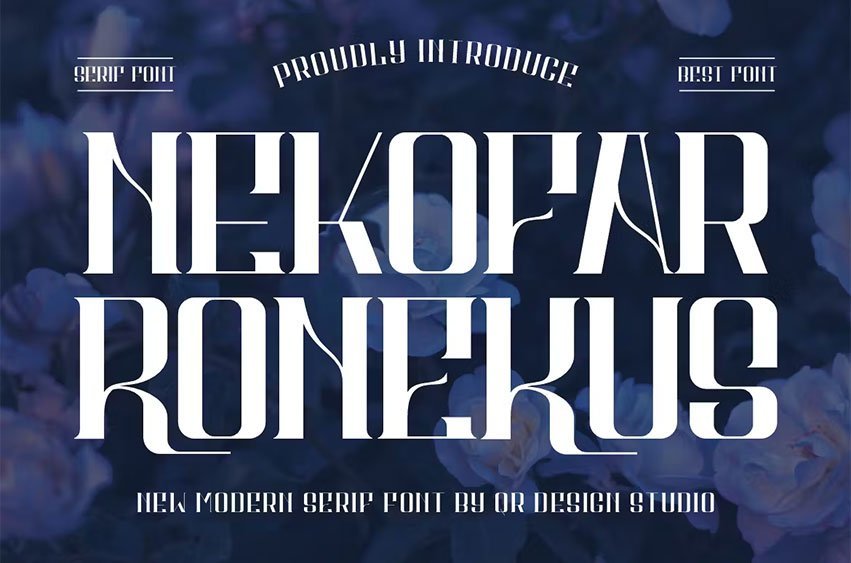
Nekofar Ronekus Font
Nekofar Ronekus Font is a bold and authentic display font. The font is suitable for any branding project like logo, romantic, love, and many more. Outstanding in a wide range of contexts.